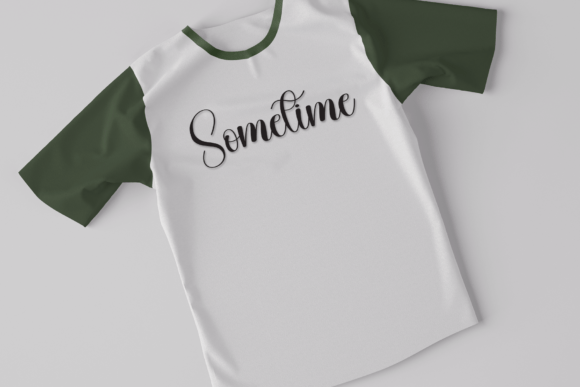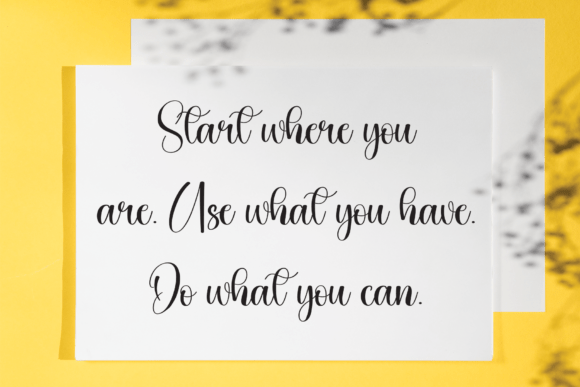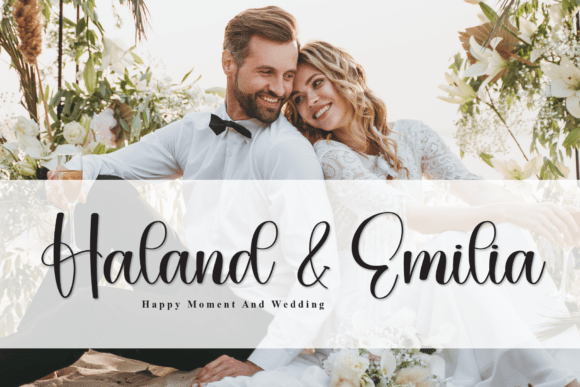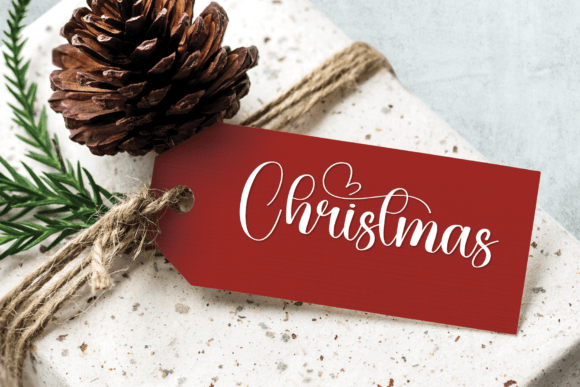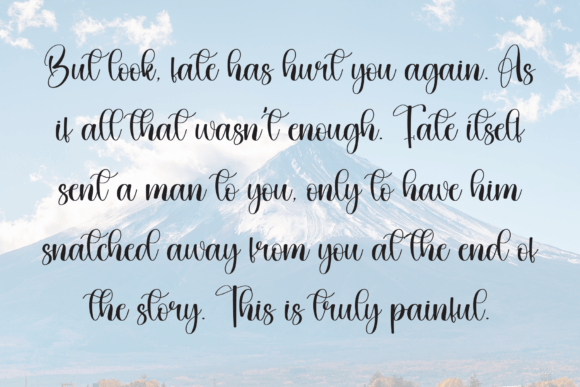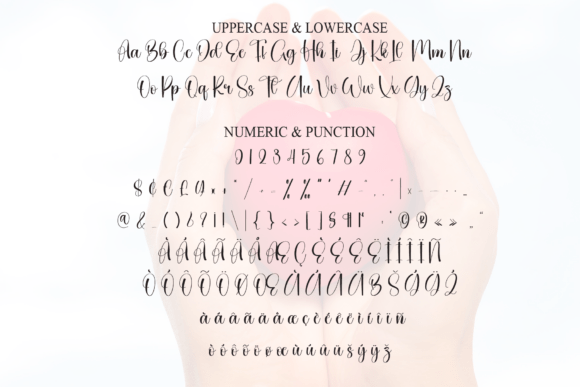
Introducing Hearting Font: Elevate Your Designs with Elegance and Sophistication
In the world of typography, a well-crafted font can make all the difference in transforming a design from ordinary to extraordinary. For designers and crafters seeking to infuse their projects with a touch of elegance and modern charm, Hearting Font emerges as an exceptional choice. This stylish script font is meticulously designed to bring a refined and sophisticated aesthetic to a wide array of design applications, from logos and invitations to packaging and social media graphics.
The Essence of Hearting Font
Hearting Font is not just a typeface; it’s an experience. It embodies the fluidity and grace of hand-drawn calligraphy, but with a contemporary twist that makes it distinctly modern. The font features graceful strokes that flow seamlessly into fluid curves, creating a harmonious and visually appealing rhythm across any text. Each letterform is carefully crafted to ensure that the font exudes a sense of elegance and sophistication, making it perfect for projects that demand a high level of refinement.
One of the standout qualities of Hearting Font is its versatility. Whether you’re working on a logo that needs to make a lasting impression, an invitation that sets the tone for a special occasion, packaging that stands out on the shelves, or social media graphics that engage and captivate your audience, this font adapts with ease. Its natural flow and polished details ensure that it brings a consistent level of quality and visual appeal to any design, making it an invaluable tool for designers and crafters alike.
Crafting with Hearting Font
For crafters, Hearting Font opens up a world of creative possibilities. Whether you’re designing handmade cards, crafting bespoke wedding stationery, or creating unique DIY projects, this font can add a personalized and elegant touch to your work. Its readability and aesthetic appeal make it suitable for both digital and print projects, allowing you to explore a wide range of creative avenues.
Why Choose Hearting Font?
- Elegance and Sophistication: Hearting Font brings an unmatched level of elegance and sophistication to any design, making it perfect for projects that require a refined aesthetic.
- Modern Twist: With its contemporary charm, this font ensures that your designs feel current and fresh.
- Versatility: Suitable for a wide range of design applications, from professional branding to personal crafting projects.
- Readability: Carefully crafted to ensure clarity and readability, making it effective for both headings and body text.
- Unique Character: Each letterform is designed to contribute to a harmonious and engaging visual experience.
Tips for Maximizing the Impact of Hearting Font
To truly leverage the potential of Hearting Font, consider the following tips:
- Pair it Wisely: Combine Hearting Font with complementary fonts to create visual interest and hierarchy in your designs.
- Experiment with Colors: Take advantage of the font’s elegance by experimenting with a range of colors that match your brand or project’s aesthetic.
- Play with Sizes: Utilize varying font sizes to add emphasis and create a dynamic visual flow in your designs.
Hearting Font is more than just a typeface; it’s a design statement. With its elegant strokes, fluid curves, and meticulously crafted letterforms, it brings a level of sophistication and modern charm that’s hard to achieve with standard fonts. Whether you’re a designer looking to elevate your branding and client projects or a crafter seeking to add a touch of elegance to your handmade creations, Hearting Font is an exceptional choice. Embrace the beauty of this stylish script font and discover how it can transform your designs into visually stunning and memorable pieces.